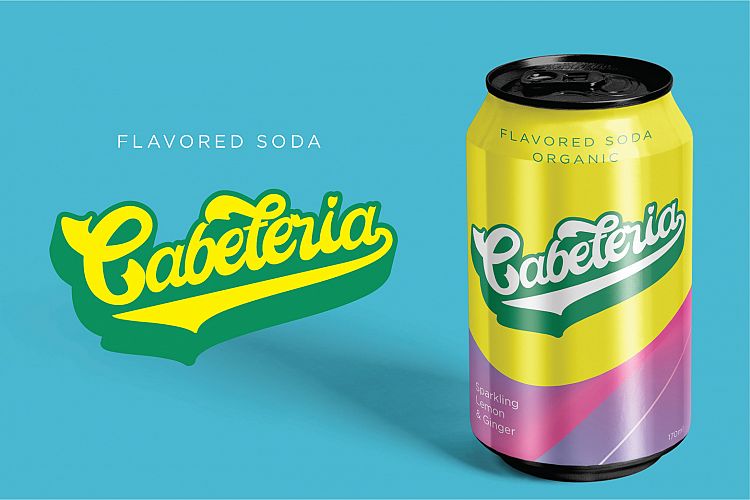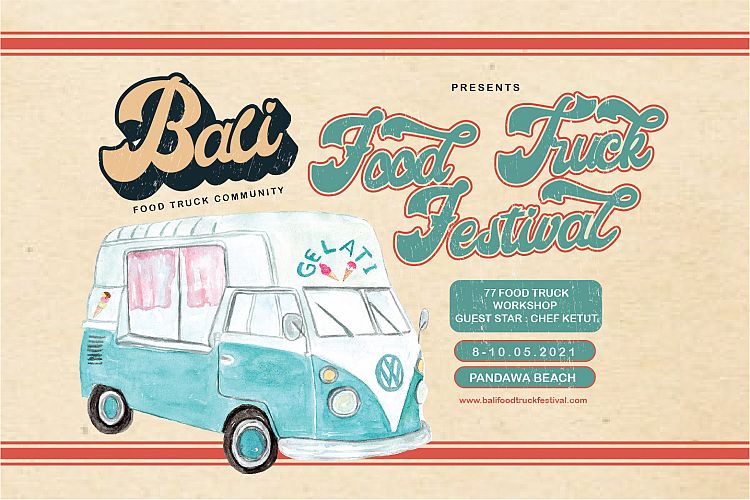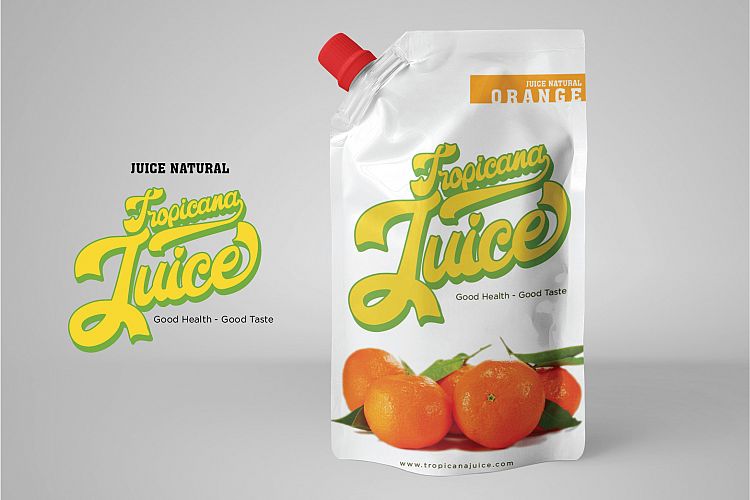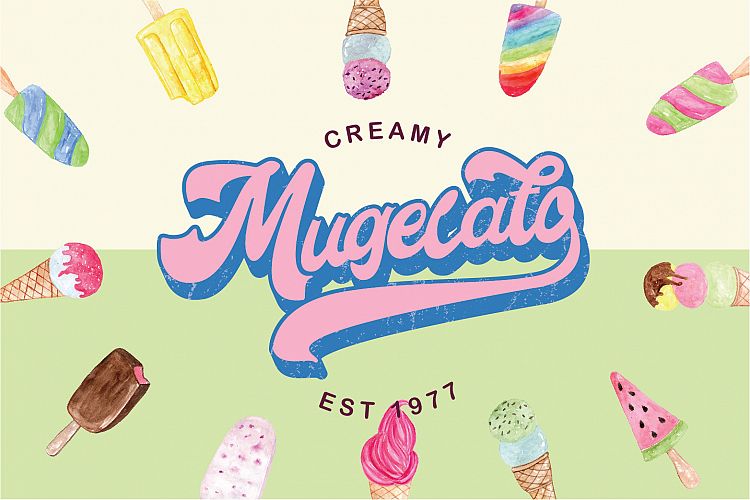
Retroholic Retro Font
Hi designer! Befonts introducing new retro font Retroholic. Inspired by Retro style and combination with Hand Lettering style. Retroholic Font designed and shared by  Nirmana Visual. Retroholic Retro Font – Inspired by 70s -80’s Era, Designed to work as perfect companions or simply as strong standalone typefaces. Offers beautiful typographic harmony for a diversity of design projects, including logos & branding, social media posts, advertisements & product designs.